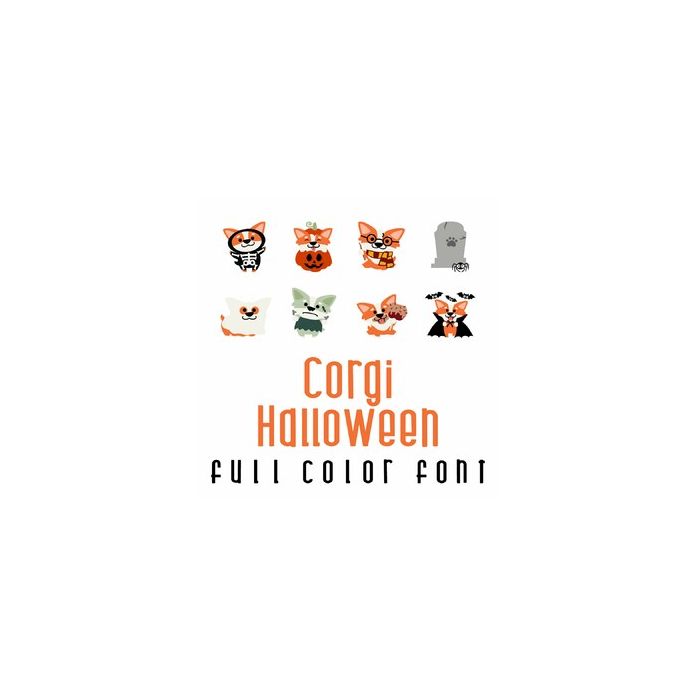
This adorable full-color doodlebat font features 26 cute little Halloween Corgis perfect for cards, crafts, gifts, decor, planner stickers, scrapbook pages and more!